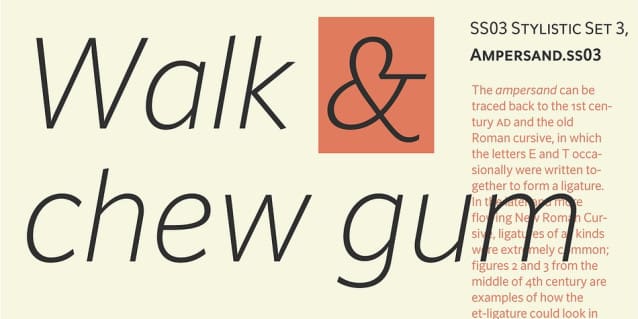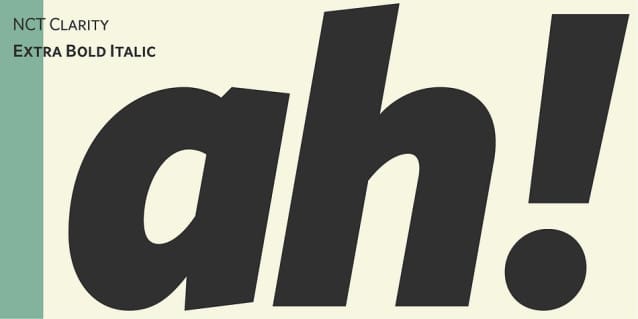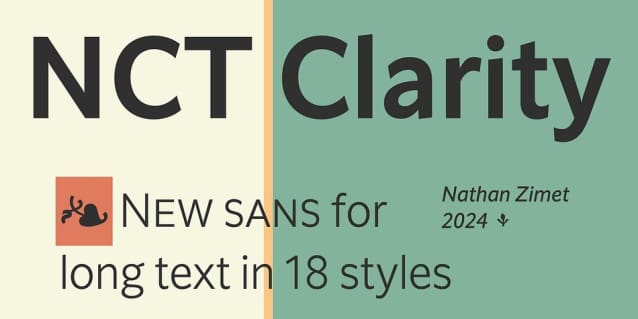
NCT Clarity Font, this subtly calligraphic sans font is primarily made for reading long blocks of text. It comes equipped with all the tools you need to create a rich typographical landscape with 9 weights, small caps, old-style figures, and matching hand-drawn italics.
NCT Clarity Font
| Designer Name: | Nathan Zimet |
| Classification: | Sans Serif Fonts |